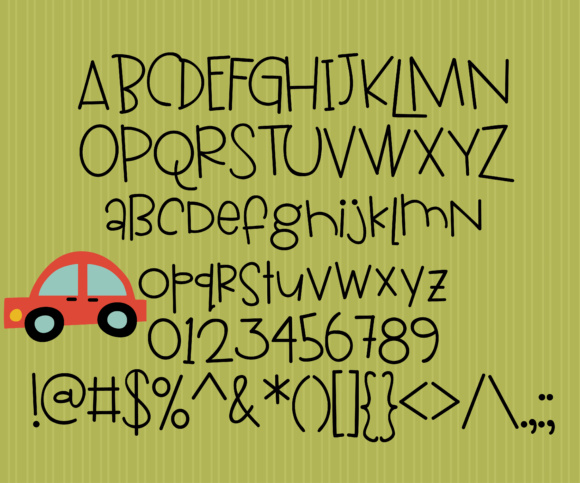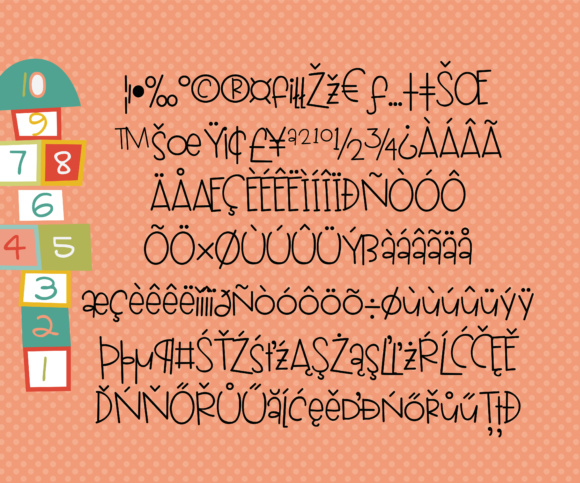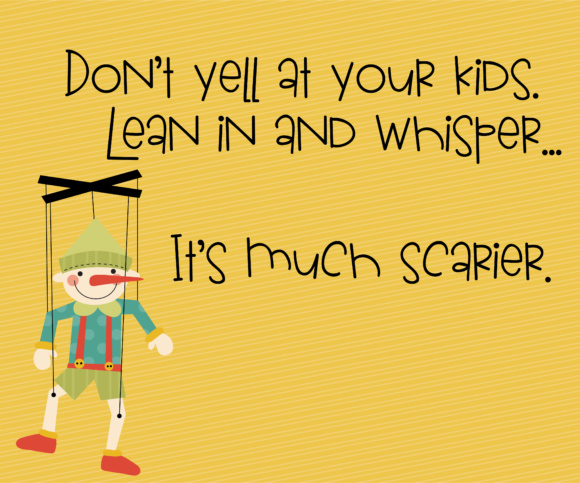
Introduction to Clacker Jax Font
Clacker Jax is a cute and casual handwritten font; this highly legible font has a bouncy baseline that makes a whimsical option for kids themed headlines and titles.
Why Choose Clacker Jax Font?
Clacker Jax Font offers exceptional quality and versatility, making it a valuable addition to your design toolkit. Whether you’re creating for personal projects or commercial use, Clacker Jax Font delivers professional results.